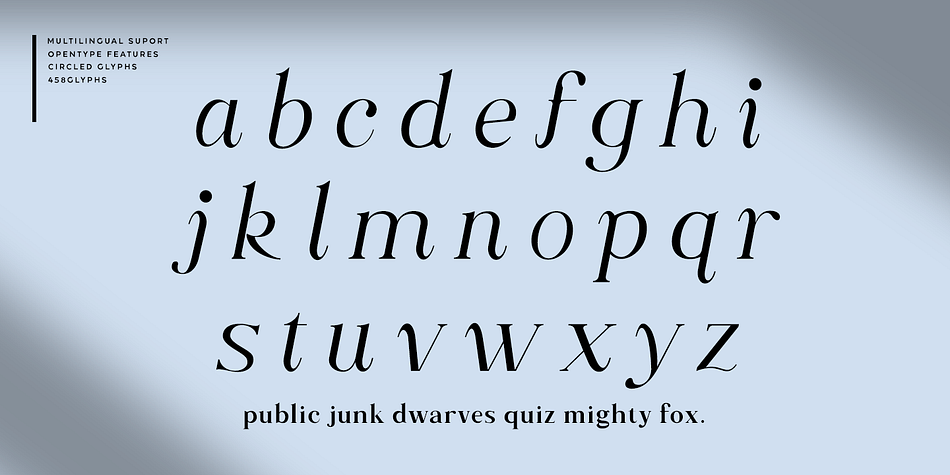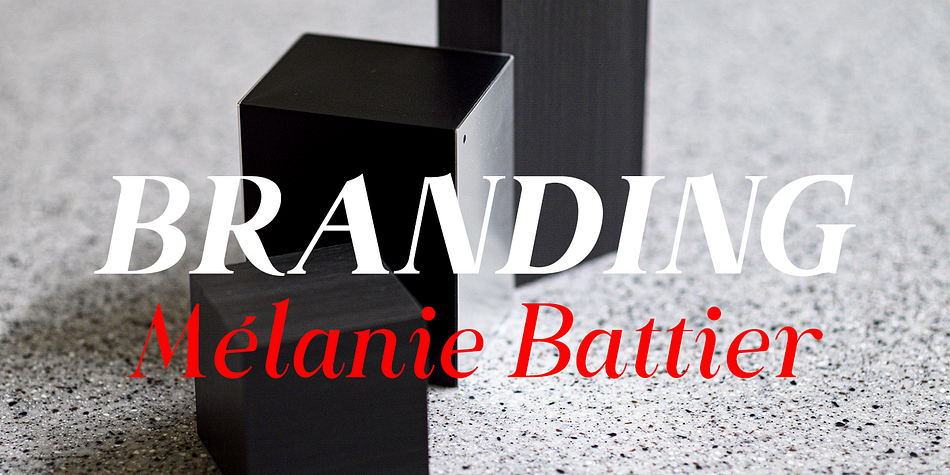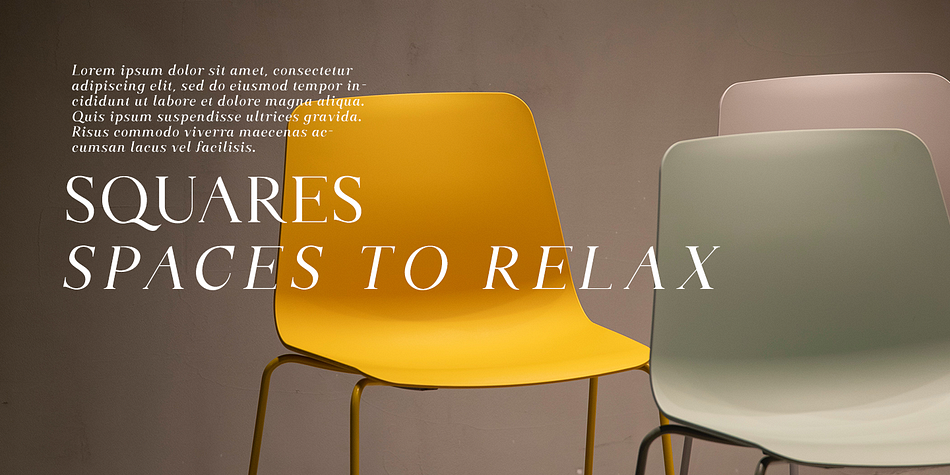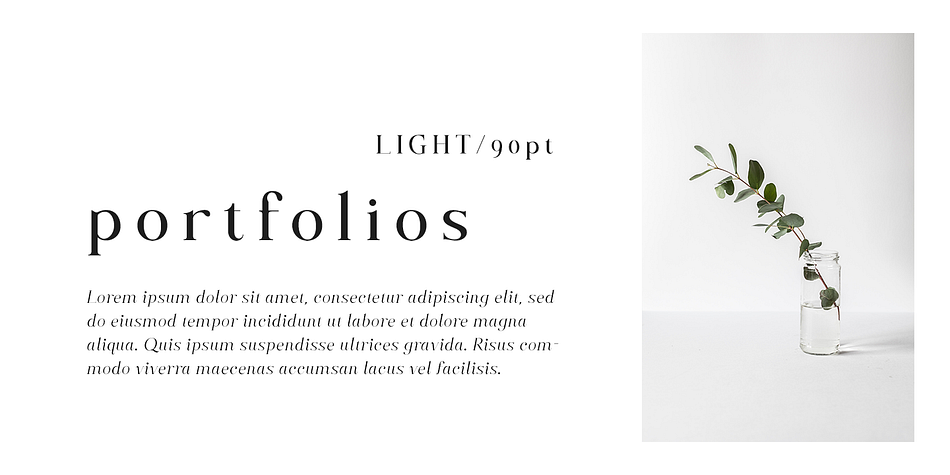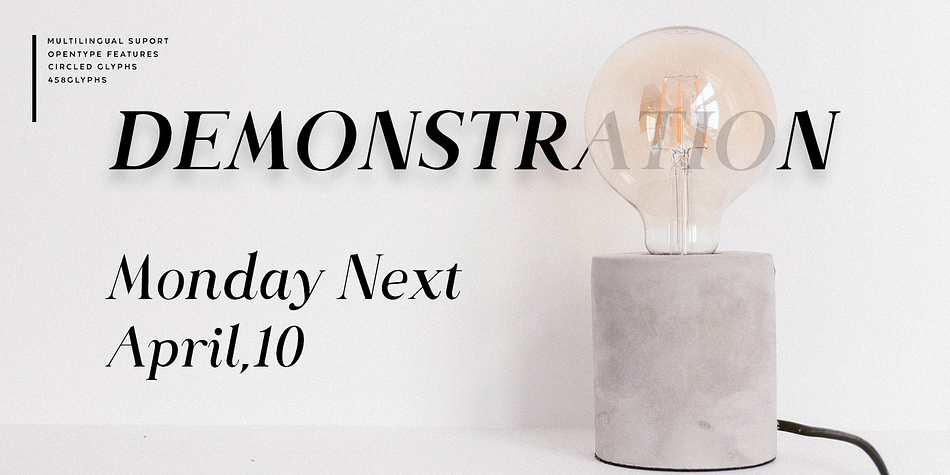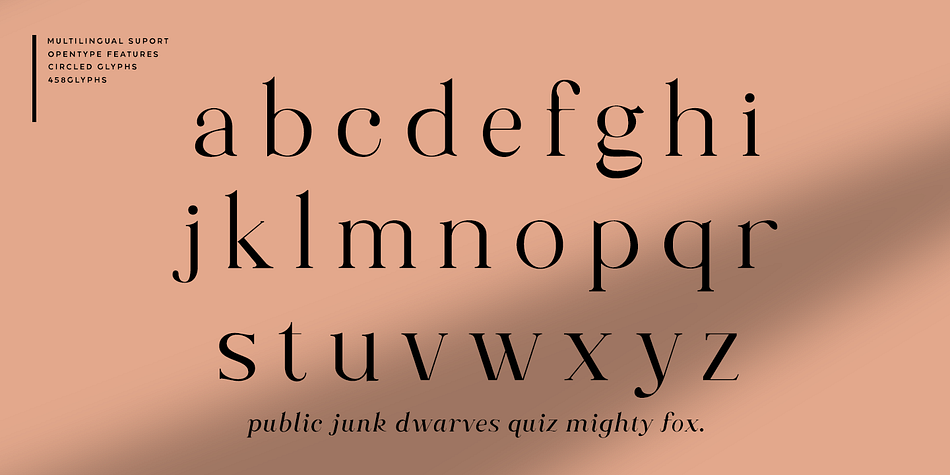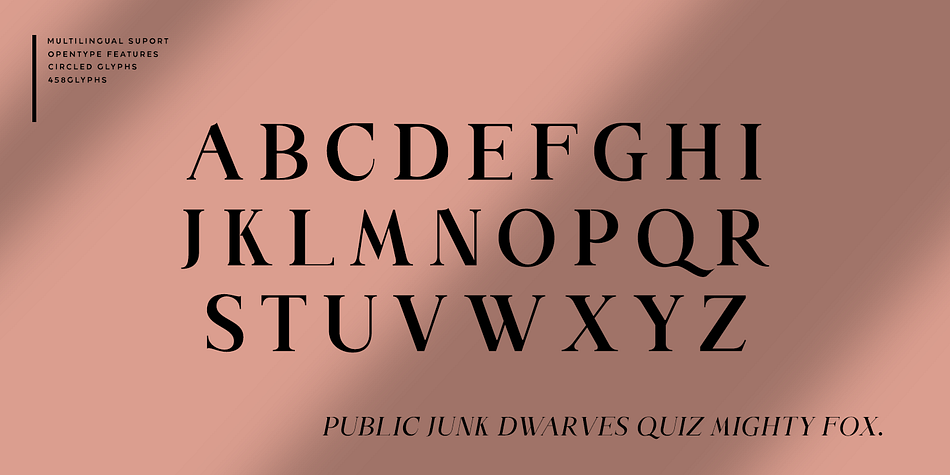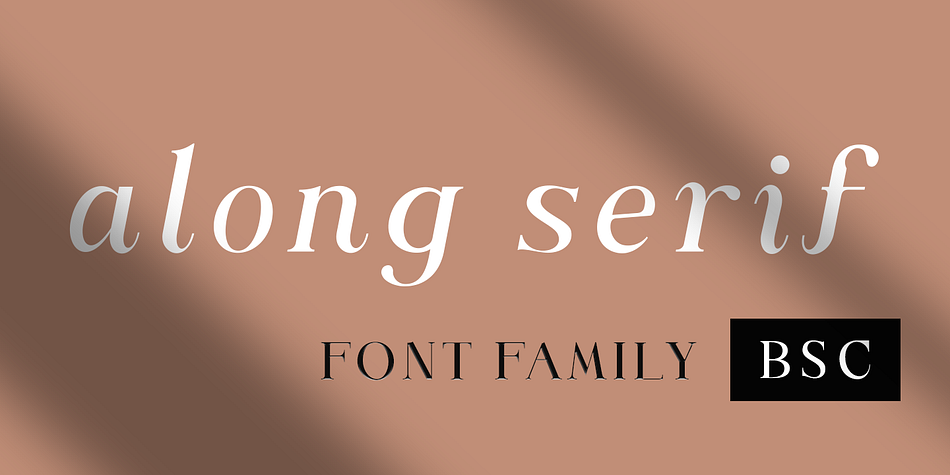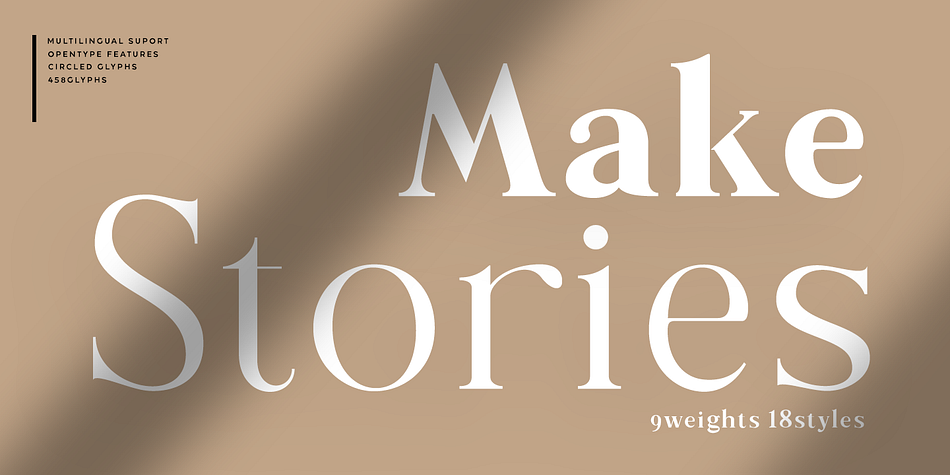
Along Serif BSC is a serif font family. This typeface has eighteen styles and was published by Brenners Template.
Along Serif BSC is a elegant font family, which designed by Ryuld Davidson of the Brenners Template.
It is designed to blend classic delicacy with modern rhythm of glyphs to suit elegant design works.
And the waves of the rhythmic stems make funny designers with sharp swords in light-weight styles.
These Italic lowercase glyphs are redesigned to get this rhythm and they are shining through the contrast of each style.
Enclosed glyphs are often used by professional designers like you.